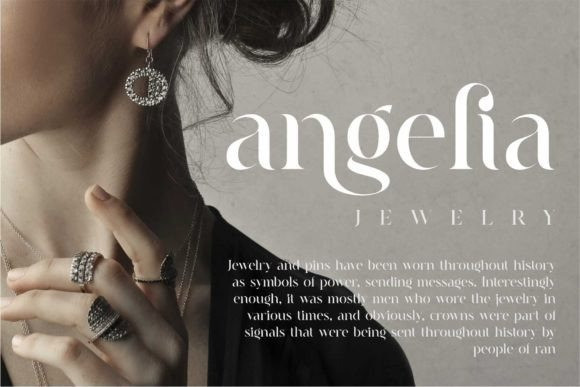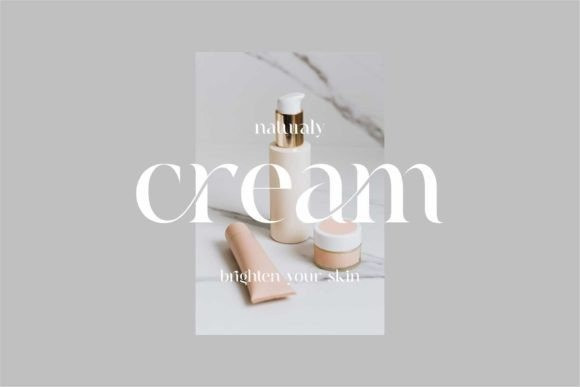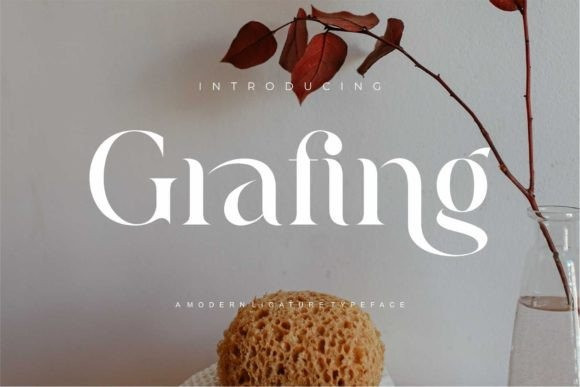
Grafing Font
Grafing Font is an elegant serif font, inspired by the famous minimalist logo, perfect for the purposes of designing templates, brochures, videos, advertising branding, logos, invitation, layout design, elegant crafting, beauty design and more.